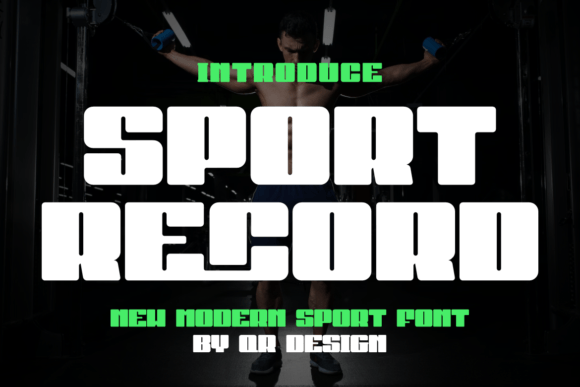
Welcome to the realm of Sport Record Font. Brace yourself for an athletic adventure with this bold and authentic display font, custom-crafted to elevate your digital creations. This modern masterpiece is no mere font; it's a statement that resonates with strength and dynamism. Transform your designs into sleek, unforgettable masterpieces that leave a lasting impression.
Explore a realm of endless possibilities with Sport Record Font. Whether you're a passionate designer, an ambitious entrepreneur, or a creative spirit yearning for expression, this font is your perfect companion. Its versatility knows no bounds, making it a must-have for logos, t-shirt designs, sports branding, and countless other projects.
Picture this: your logo, emblazoned with the Sport Record Font, stands out from the crowd like a champion. Its bold strokes convey a sense of power and determination that captivates the eyes. Unleash your creativity and craft t-shirts that speak volumes, with slogans and graphics that come alive in the Sport Record Font's energetic embrace.
Step into the arena of sports branding and let Sport Record Font ignite your designs with passion. Create posters and banners that capture the thrill of victory and the spirit of competition. The font's dynamic energy infuses your designs with an adrenaline rush that leaves audiences cheering for more.
Beyond these realms, Sport Record Font shines in a multitude of contexts. Its versatility extends to website designs, social media graphics, and even packaging. Picture your brand's message displayed in this font, commanding attention and leaving an unforgettable mark.
With Sport Record Font, you're not just downloading a font; you're embarking on a journey of creative empowerment. Its bold strokes and authentic style will transform your designs into masterpieces, leaving your audience captivated and inspired. Join the ranks of those who dare to be different and embrace the power of Sport Record Font.